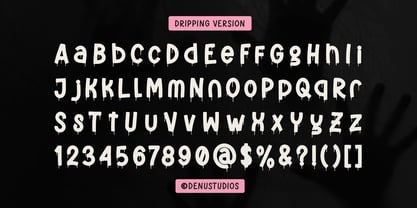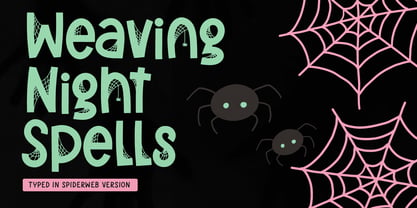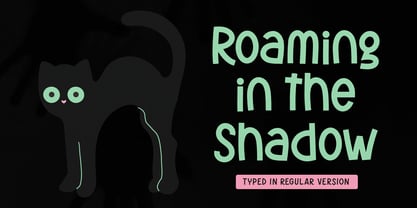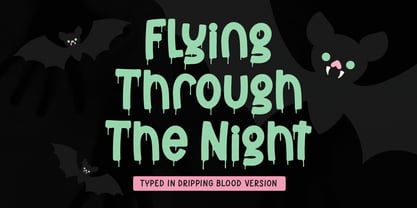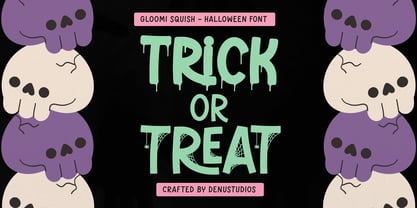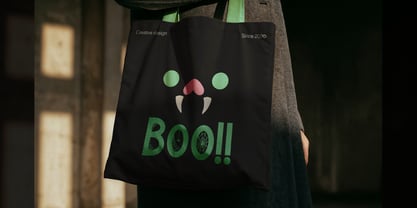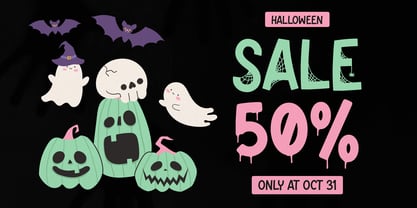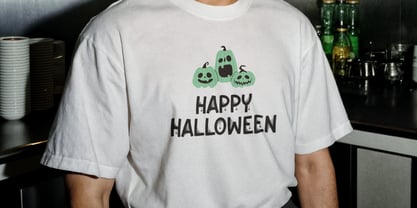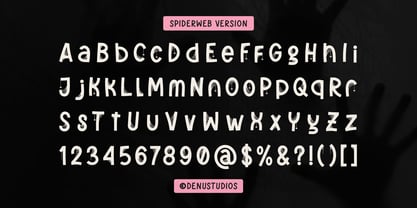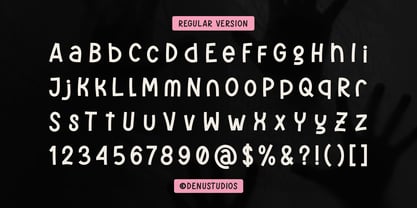
Gloomi Squish
La famille de polices Gloomi Squish a été conçue par Dede Marwan et publiée par Denustudio. Gloomi Squish contient 3 styles et options de package familial. En savoir plus sur cette famille
• Gloomi Squish Regular
• Gloomi Squish Spiderweb Regular
• Gloomi Squish Dripping Regular
Gloomi Squish | New Halloween Font, from Denustudios, suitable for any projects such as: logos, branding projects, homeware designs, product packaging, mugs, quotes, posters, shopping bags, t-shirts, book covers, name card, invitation cards, greeting cards, label, photography, watermark, special events, and all your other lovely projects that need Halloween Font a taste.